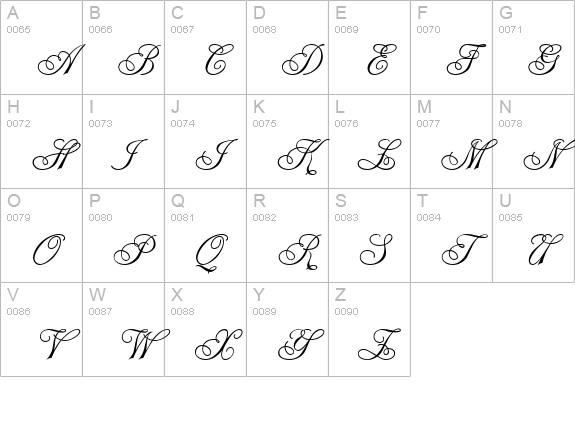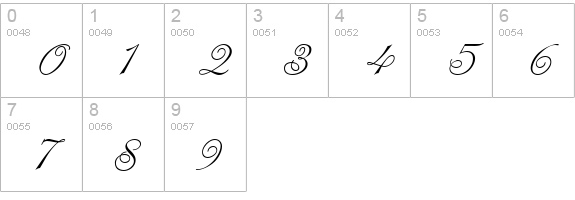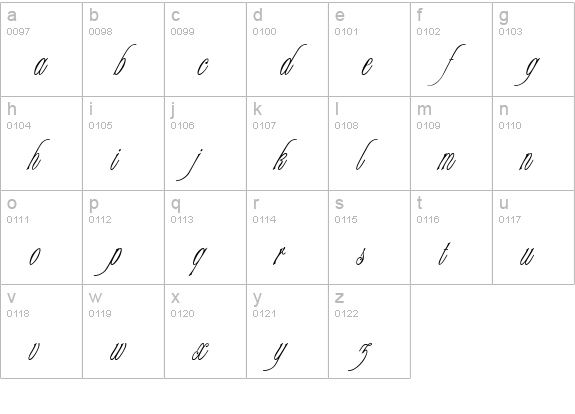
Alexei CopperplateITC-Normal Font Details
Alexei CopperplateITC-Normal is the standard, neutral variant in the Alexei typeface family \xE2\x80\x94 well suited to general body text, paragraphs, and standard typographic work.
Alexei CopperplateITC-Normal font is a timeless and versatile typeface that exudes elegance and sophistication. With its clean lines and classic design, this font is perfect for a wide range of projects, from formal invitations to professional documents. What sets Alexei CopperplateITC-Normal font apart is its seamless blend of traditional and modern elements, making it a truly unique choice for any design endeavor. Its bold yet refined appearance commands attention while maintaining a sense of understated grace. The best part? Alexei CopperplateITC-Normal font is available for free download at FontsMarket.com, allowing you to effortlessly incorporate this stunning typeface into your next project without breaking the bank. Don't miss out on the opportunity to elevate your designs with this exceptional font today!